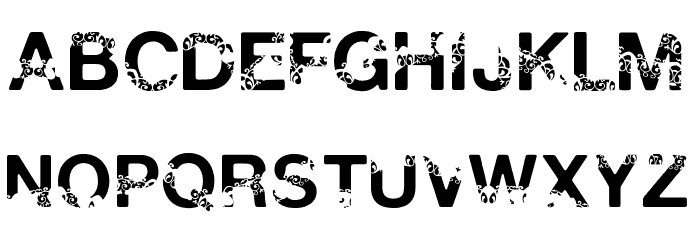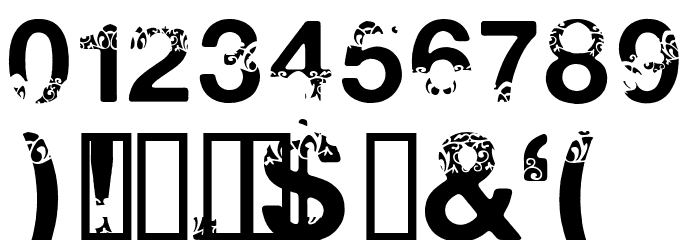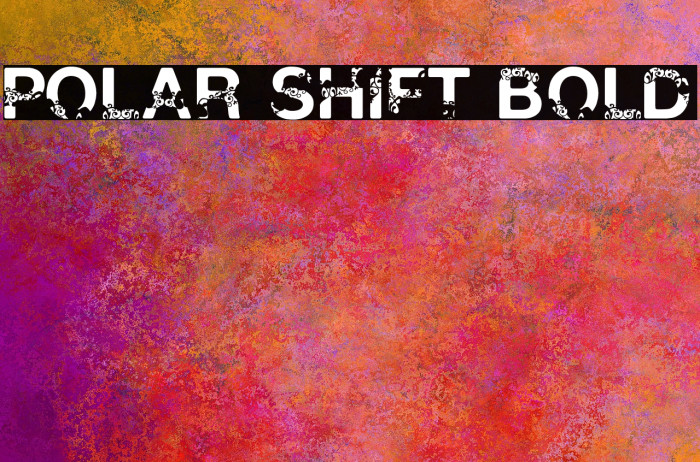
Polar Shift Bold Font
This font features a bold, decorative style with intricate floral patterns integrated into the characters. The uppercase letters are prominent and eye-catching, making them suitable for standout designs. The numbers and special characters follow the same ornate theme, ensuring consistency across all text elements. The unique design elements create a sense of elegance and sophistication, making it ideal for projects that require a touch of creativity and flair. The font's boldness ensures readability while the decorative elements add a layer of visual interest.
A bold, decorative font with intricate floral patterns.
- Proposed Projects: Ideal for wedding invitations, luxury branding, artistic posters, and decorative headings.
- Use Case: Headlines, Logos, Artistic projects